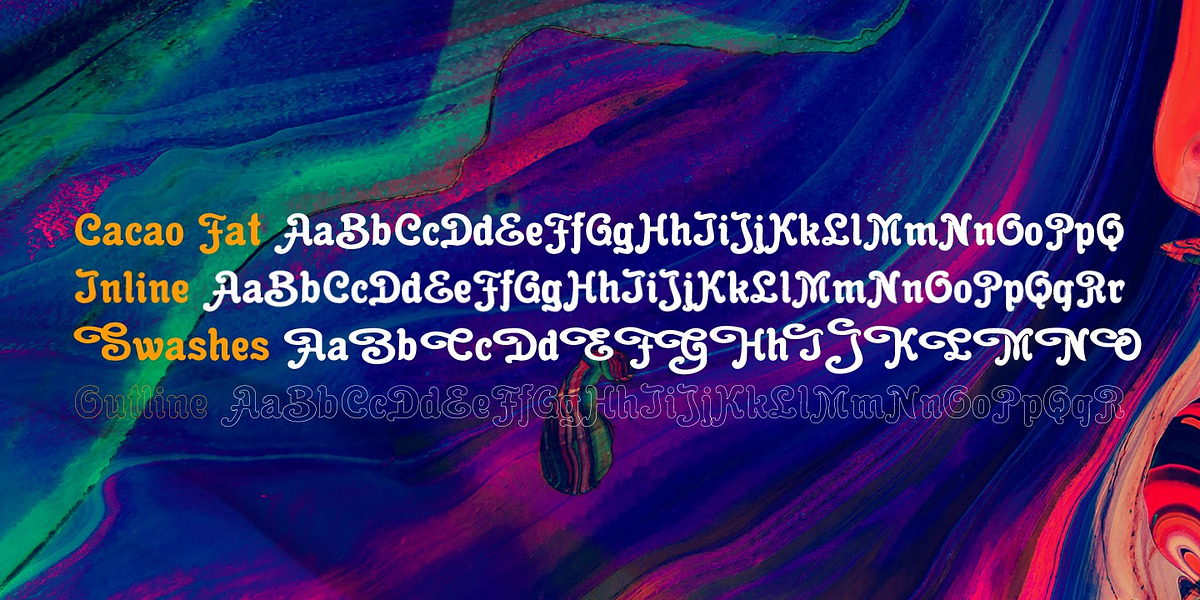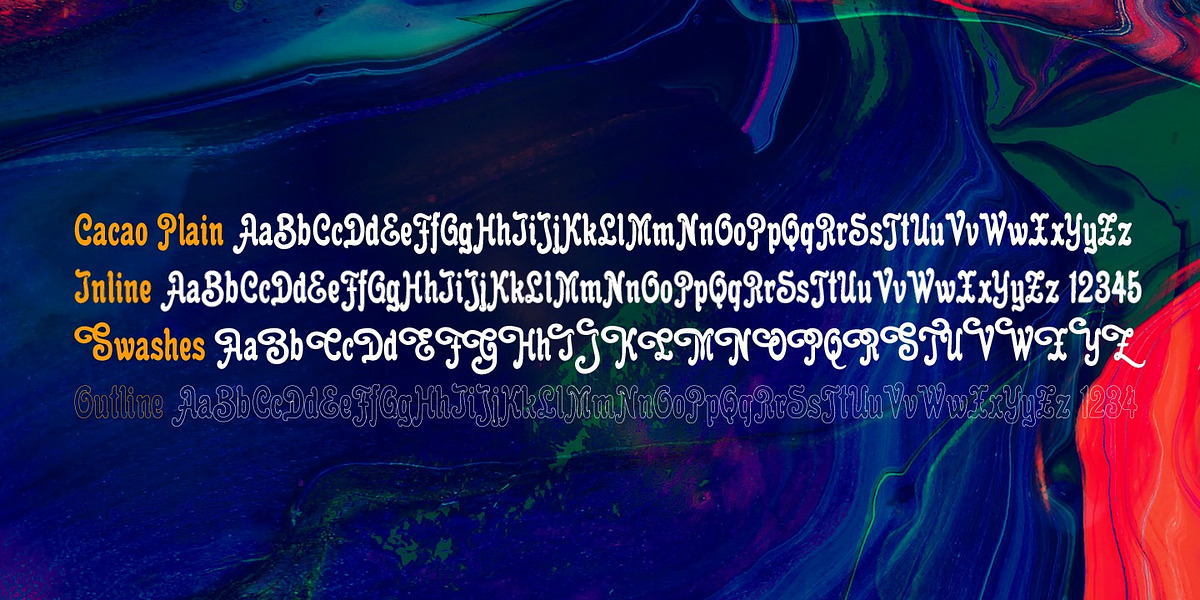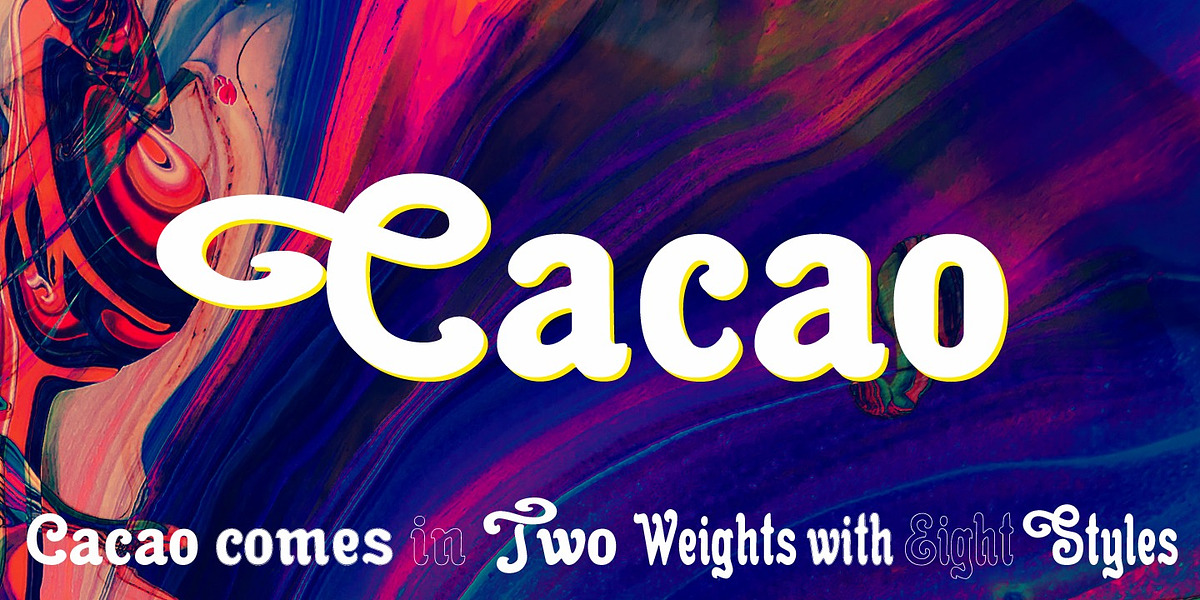
Cacao
This vintage script font features a playful and creative brush style with pronounced swashes and curly elements. Its outline design evokes the aesthetic of 1960s typography, making it suitable for branding and packaging projects seeking a retro touch.